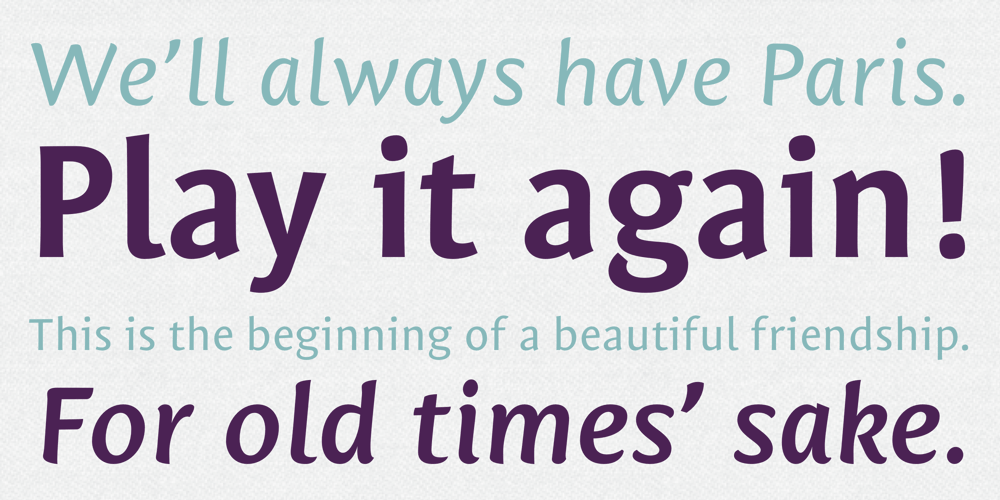
Mantika Sans
Mantika Sans font
Mantika Sans Font Family was designed by Jürgen Weltin and published by Linotype. Mantika Sans contains 4 styles and family package options. With its well-defined characters that are readily legible even in the small font sizes, Mantika Sans by Jürgen Weltin is ideal for typesetting. The elaborately designed and highly individual set of italics enhances the attractiveness of the font.Jürgen Weltin developed the Mantika™ Sans sans serif font using older designs for an serif font as his inspiration. Nothing more than the merest suggestion of the original serifs has survived. Bevelled line endings and the slight variation in thickness of verticals, in particular, provide Mantika Sans with a very dynamic character that evokes manuscript. Short ascenders and descenders give the font a compact appearance that is also underscored by its condensed proportions. Weltin has achieved his aim of producing a typeface with excellent legibility even in small sizes not just by means of the x-height, which is tall in comparison with the capital letters, but also by using clearly defined and well differentiated designs for critical letters, such as i”, “I” and “l”. Lower case “i”, for example, has a serif while the “l” has a curved base.In addition to uppercase numerals, Mantika Sans also has lowercase or old style numerals that have been designed so that they can be used in both tabular and proportional settings. The uppercase numerals are slightly shorter than the uppercase letters, ensuring that the latter can be sympathetically incorporated within continuous text.The Mantika Sans italics are very unusual. They are inclined at only 4.5° (the usual angle for italics is 10 – 12°) and so appear to be almost upright. In addition, they also have quite distinctive forms. The overall effect calls attention to their curvilinear, manuscript character, enhances contrasts and further emphasizes the terminals. Weltin explains: “Within the variety of forms of the italics there are many contrasting terminal elements that create dynamism. The result is a diversity of interaction between the rounded and angular forms”. Mantika Sans Italic thus has all the features of a display typeface, but can also be happily used on its own to set longer text passages. Mantika Sans is available in two weights; Regular and Bold, both of which have corresponding italics sets. Mantika Sans has been designed so that the widths of the four related cuts are identical, meaning that a change of font within a single layout will have no effect on justification. In addition, the members of the Mantika Informal font family, designed by Jürgen Weltin in 2010, also have the same thickness. Other font families having weights with equal thickness can be found in the “Linotype Office Alliance series”.The Mantika Sans character sets are paneuropean. There are characters for setting texts in Eastern European languages, Greek and Cyrillic. There is also a range of special symbols, including right-angled brackets, subscript and superscript lower case letters, together with numerals, arrows and many different bullet points.As a vibrant and highly legible text font, Mantika Sans has a broad spectrum of potential applications. Its unusual italics are not just perfect for use in display text. The fact that it has only four cuts means that Mantika Sans is particularly suitable for office use or for the setting of business reports. Its excellent legibility even in the small font sizes also makes it ideal as a text for electronic reading devices; this also applies to Mantika Informal.At the 3rd International Eastern Type Design Competition Granshan 2010, Mantika Sans was awarded in the category Greek text typefaces.”